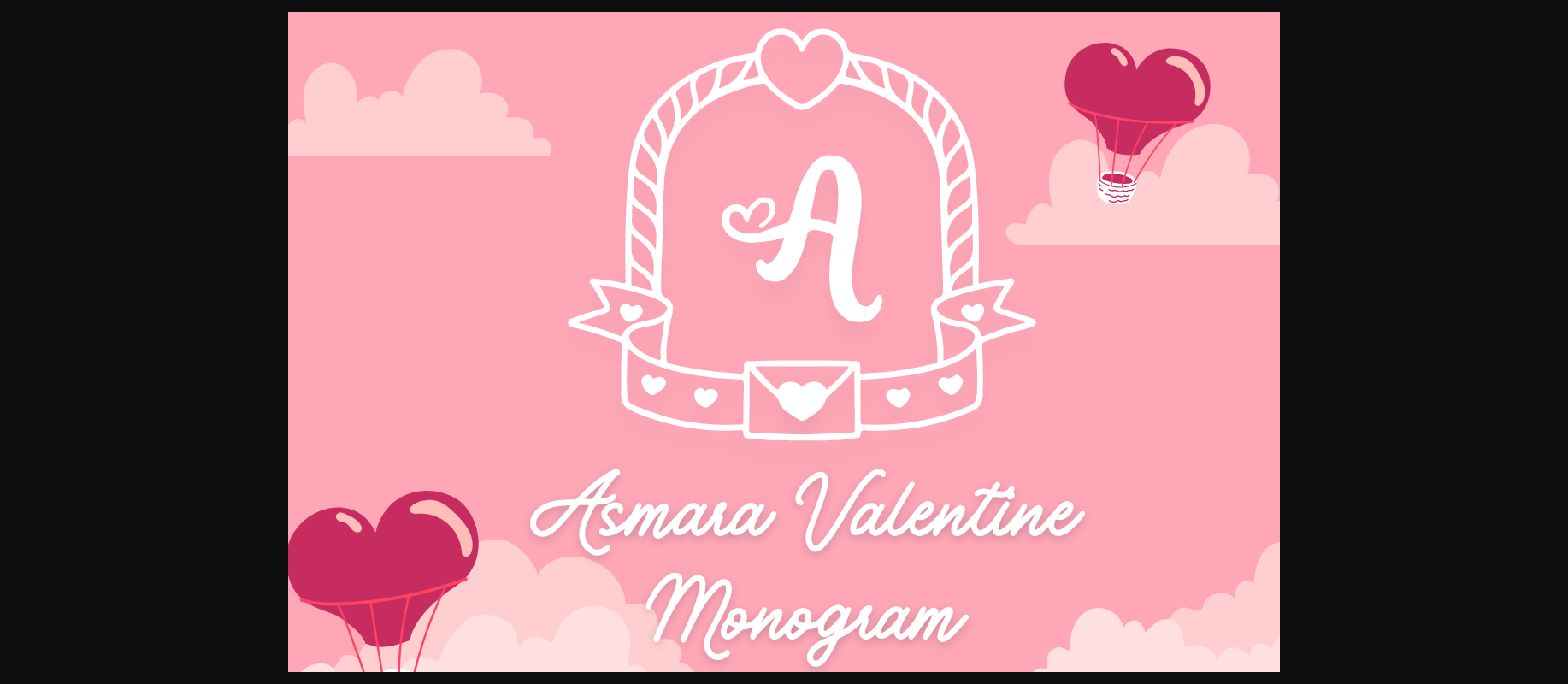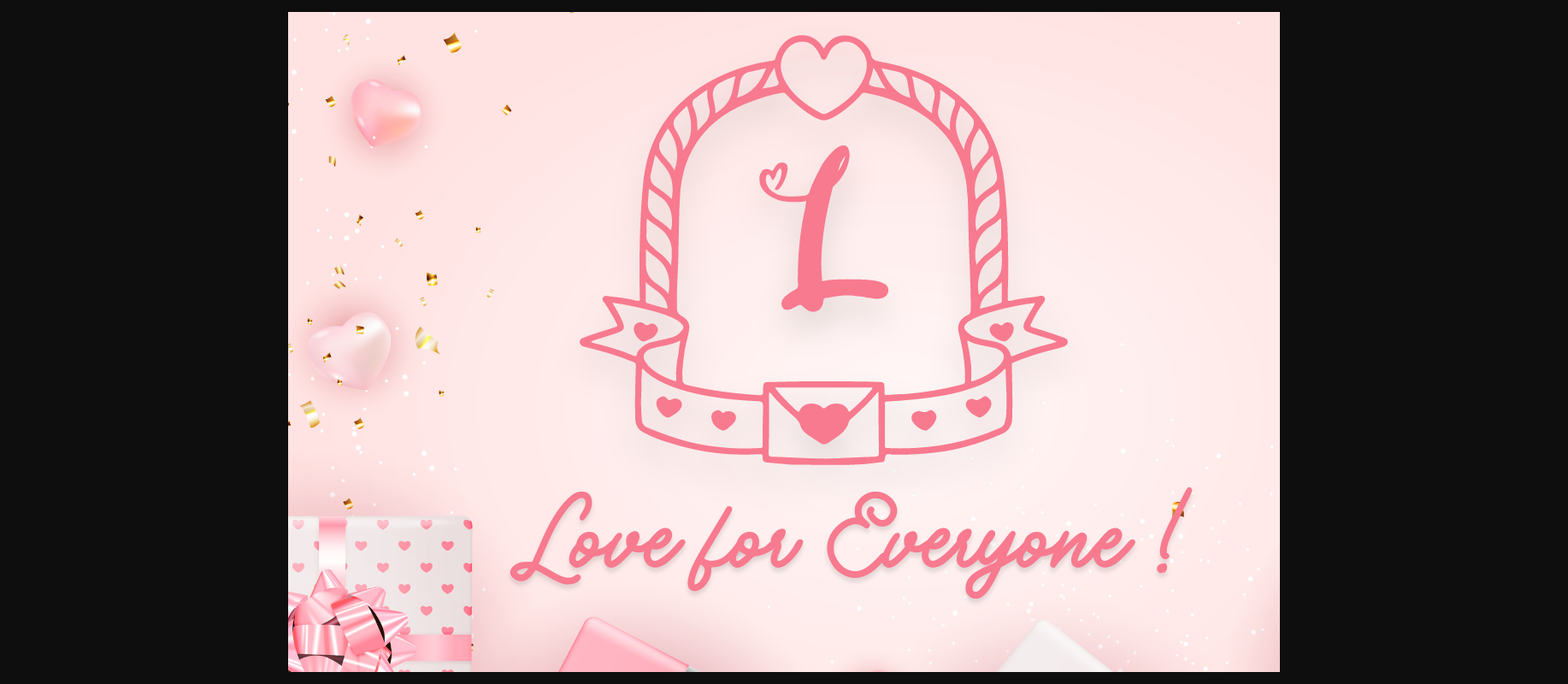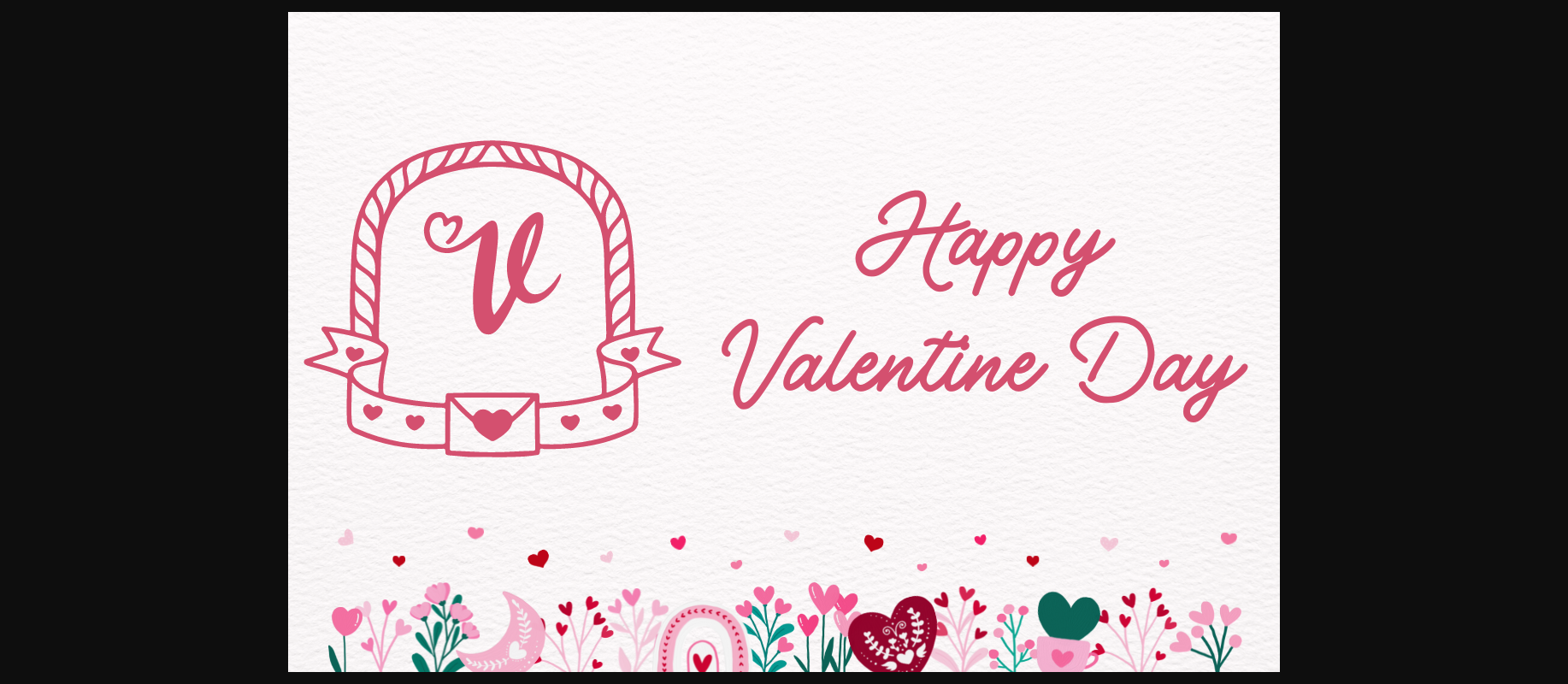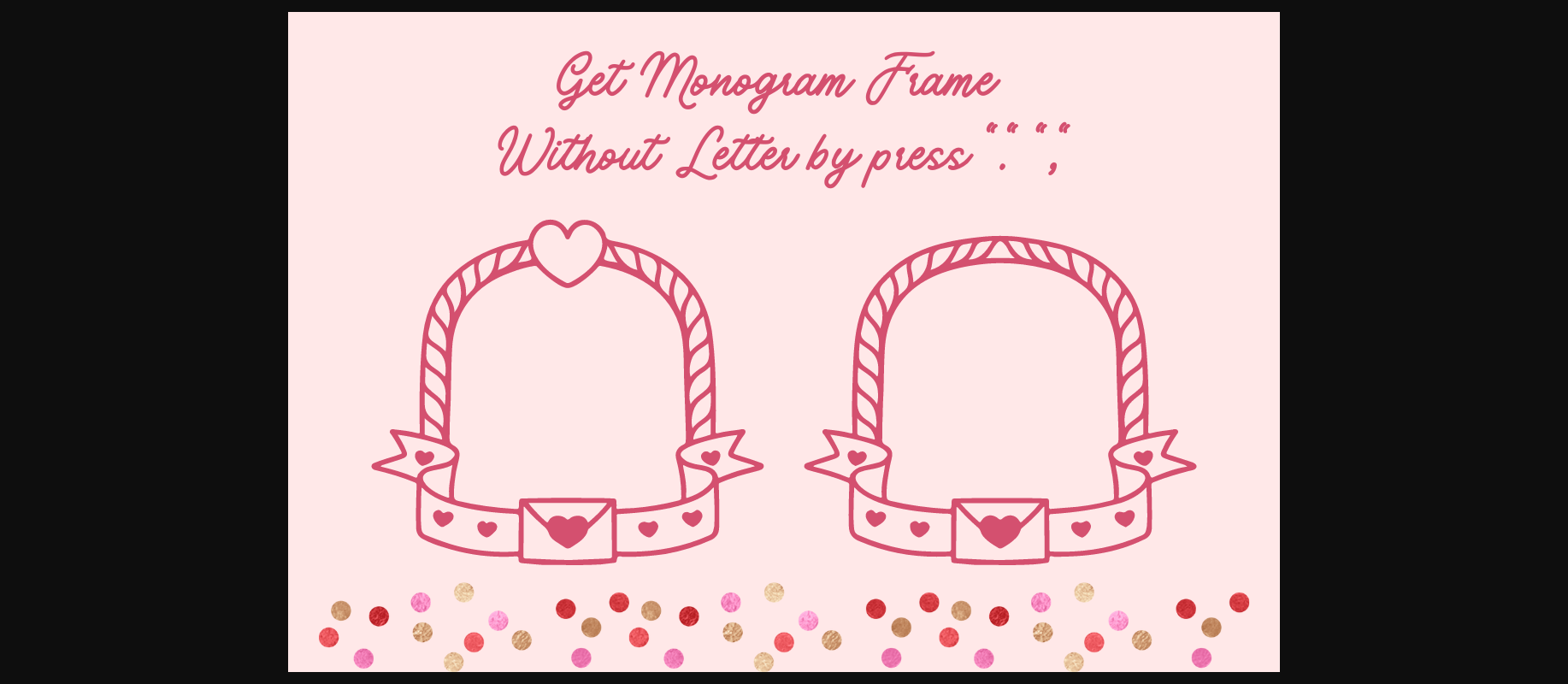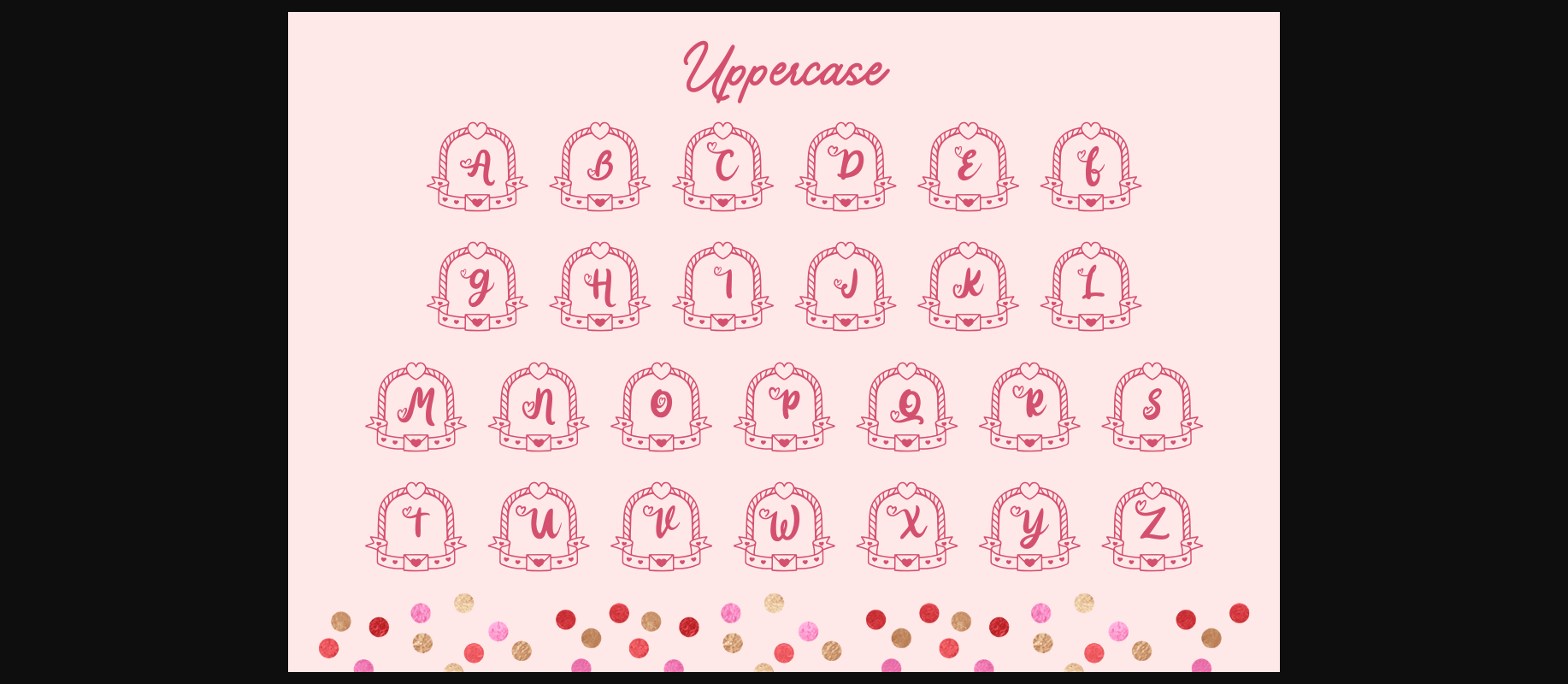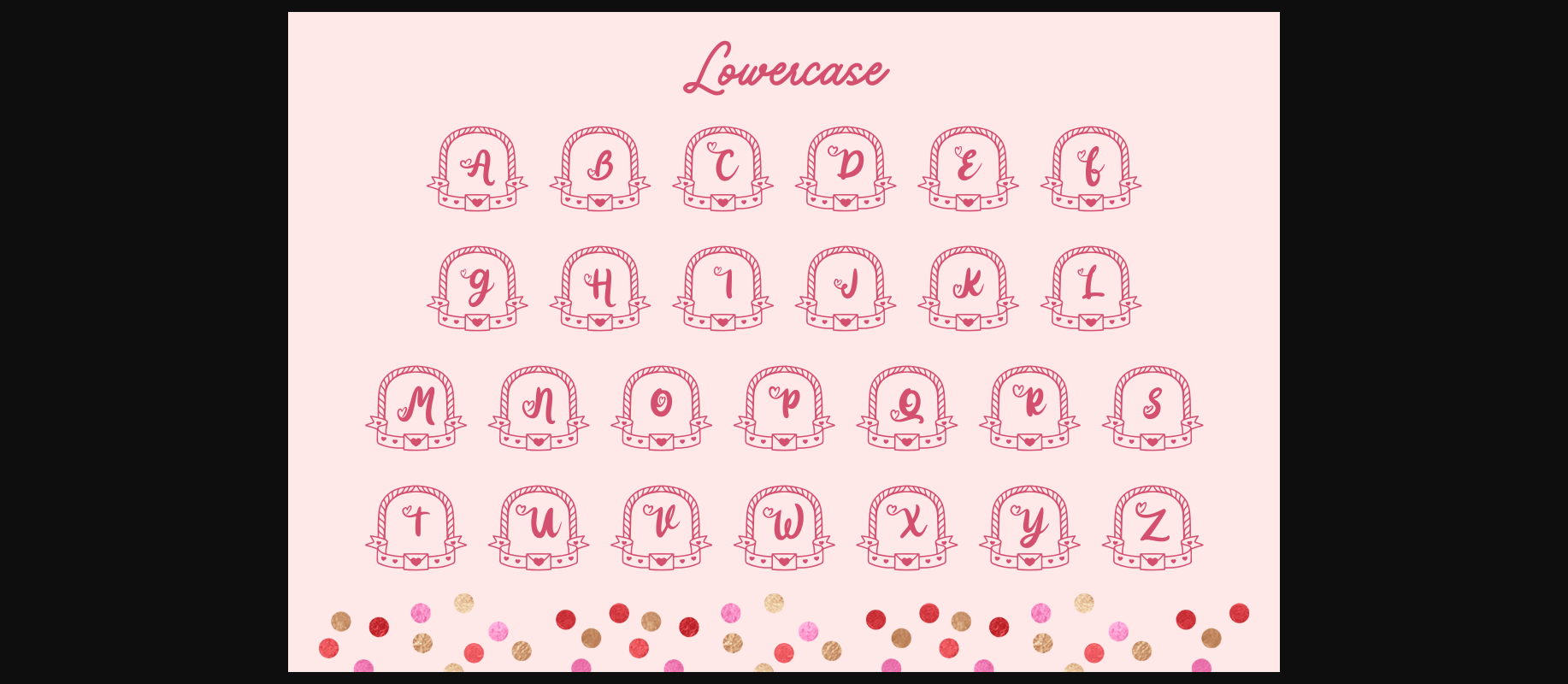
Asmara Valentine Monogram Font
About Asmara Valentine Monogram Font
Asmara Valentine Monogram is a cute decorative monogram font. Fall in love with its adorable characters and use them to create stunning designs.